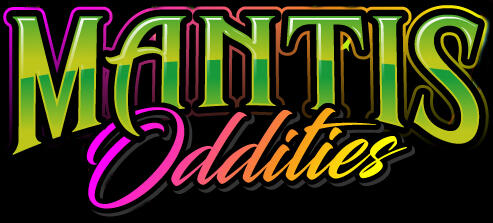
Help identifying gothic style font
I have a new client (www.mantisoddities.com.au) that is upgrading their current logo and wants some new signage done.
I am hoping someone might be able to help identify the two fonts used, I don't have a lot of information about it but they believe it's was a free font. I haven't been able to find anything similar online yet.